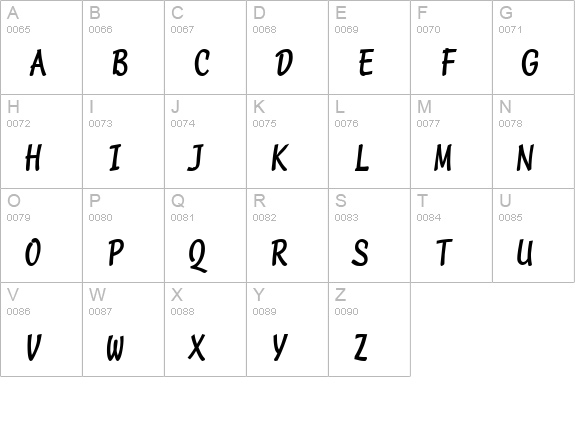
Manuscript Condensed Bold is a strong, high-contrast, condensed-width variant in the Manuscript typeface family \xE2\x80\x94 well suited to headlines, attention-grabbing titles, and strong calls-to-action.
Manuscript Condensed Bold font is a visually striking and versatile typeface that exudes a powerful and contemporary aesthetic. Its condensed design allows for maximum impact, making it perfect for headlines, titles, and other prominent text. With its bold and strong presence, Manuscript Condensed Bold font commands attention and adds a touch of sophistication to any design project. Its clean and crisp lines create a sense of modernity, while its condensed form ensures that every character fits seamlessly into tight spaces. The versatility of Manuscript Condensed Bold font is further enhanced by its ability to work across a wide range of applications. From advertising campaigns to magazine layouts, website headers to branding materials, this font is capable of delivering a bold and impactful message. One of the most appealing aspects of Manuscript Condensed Bold font is that it is freely available to download at FontsMarket.com. This means that designers and enthusiasts alike can access this remarkable typeface without any financial constraints. The freedom to utilize such a high-quality font without any cost ensures that creativity is not limited by budgetary concerns. Whether you are a professional designer looking to make a statement or an individual seeking to enhance your personal projects, Manuscript Condensed Bold font is an excellent choice. Its striking appearance, versatility, and free availability make it an invaluable asset for any creative endeavor. Embrace the power of Manuscript Condensed Bold font and elevate your designs to new heights.